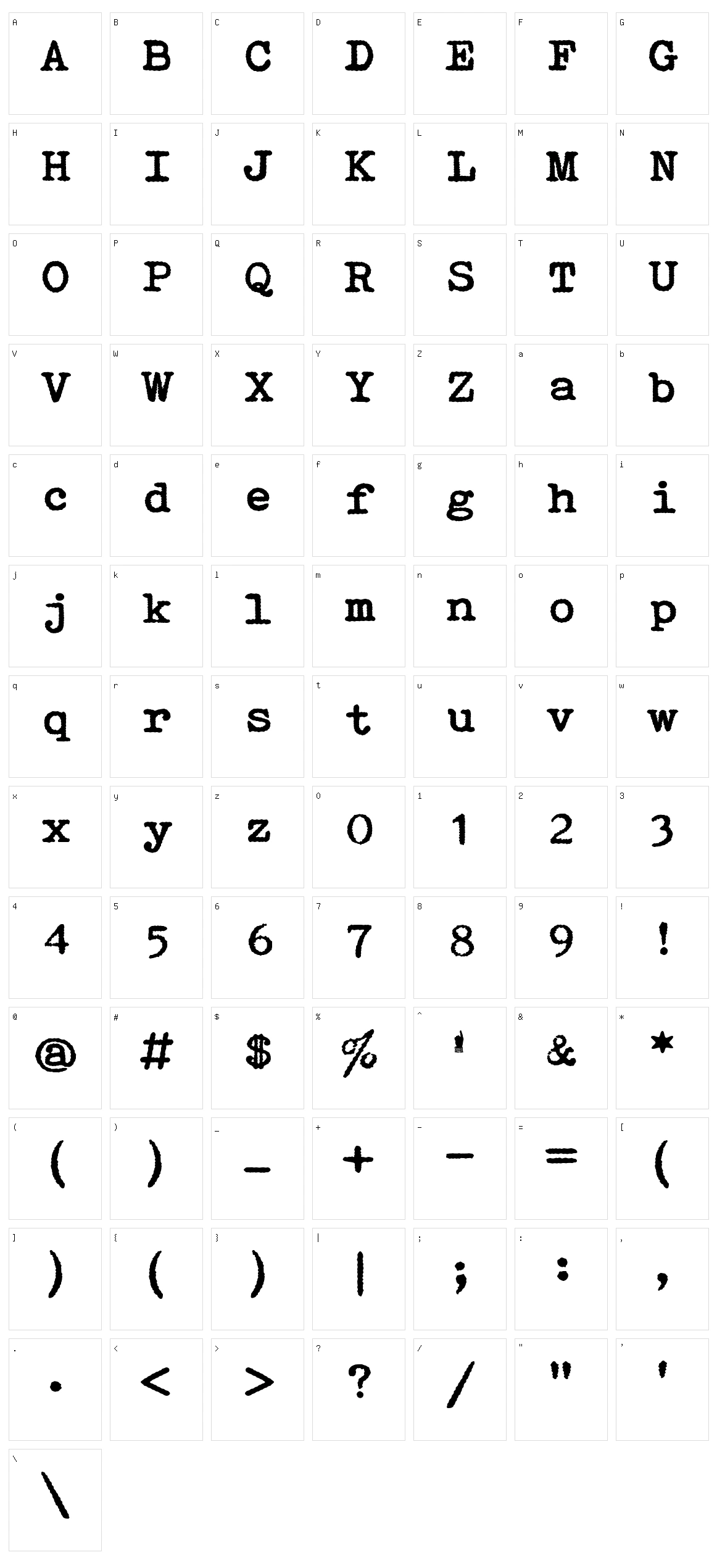
It is primarily a Hebrew typewriter font, but it also contains basic Latin character set.
Je to primarne hebrejsky font psaciho stroje, ale obsahuje i zakladni latinskou znakovou sadu.